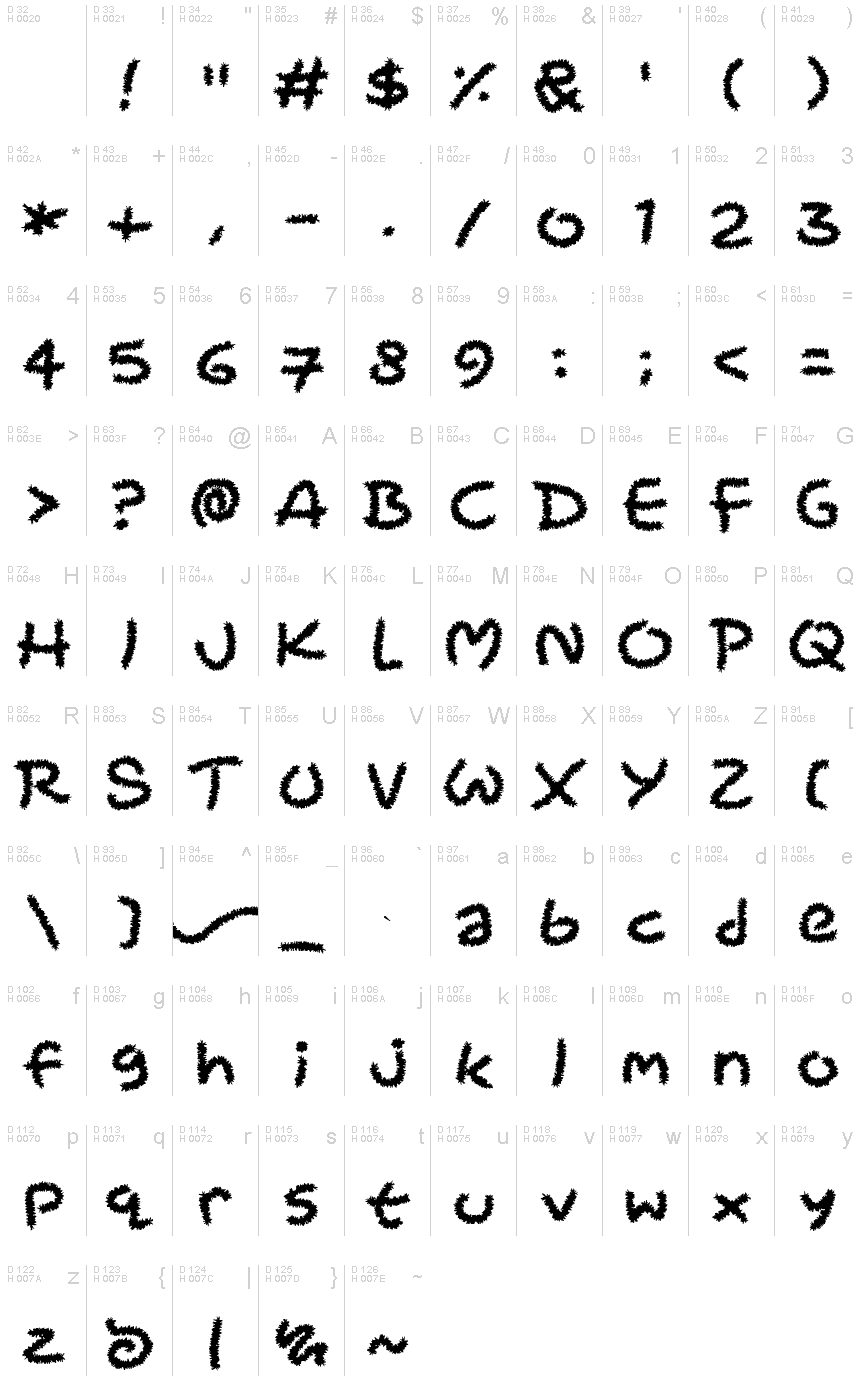
Pipecleaners
Pipecleaners, designed by Darrell Flood, is a display font that breaks the mold with its delightfully distorted style. Its jagged edges and whimsical irregularities capture an essence of controlled chaos that exudes creativity and fun. The aesthetic appeal of Pipecleaners lies in its ability to add texture and a hand-crafted touch to any visual composition.
This font's bold character makes it an excellent choice for projects that aim to stand out—be it eye-catching social media posts, dynamic event flyers, or innovative branding initiatives. With its unique style, Pipecleaners invites designers to explore a realm where typography becomes not just a means of delivering a message but also an integral part of the visual experience itself. Whether you're looking to inject personality into your designs or aiming for an unconventional twist, Pipecleaners is poised to elevate your creative project with its distinctive flair.